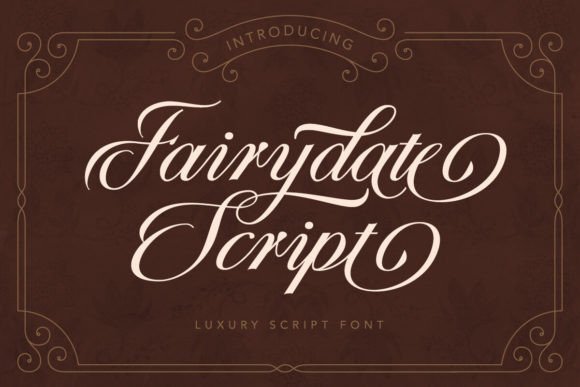
Unlock the Magic of Fairydate Font
As designers, we’ve all been there – staring at a blank canvas, searching for the perfect font to bring our creative vision to life. The moment of discovery, when the right typeface finally clicks, is one of the most exhilarating experiences in the design process. And for those seeking a touch of elegance and sophistication, Fairydate Font is sure to cast a spell.
This luxury script font boasts an impressive array of stylish alternates, allowing designers to add a personal touch to their projects. Whether it’s a wedding invitation, a motivational quote, or a brand’s identity, Fairydate Font’s versatility makes it an invaluable tool in any designer’s arsenal. With its support for multiple languages, the possibilities are endless.
Fairydate Font Key Features
- Font Family: Fairydate Font is a unique, hand-drawn font designed for various digital and print media applications.
- Unique Characteristics: Fairydate Font features a whimsical, dreamy feel with intricate details and flourishes, perfect for adding a touch of magic to your designs.
Fairydate Font Review
I’ve had the chance to work with Fairydate Font, and I must say, it’s a unique and charming addition to any design project. ✨ The delicate, hand-drawn lines and intricate details give it a whimsical feel that’s perfect for children’s books, wedding invitations, or any other project that needs a touch of magic.
One of the standout features of Fairydate Font is its versatility. It comes in a range of weights and styles, making it easy to customize to suit your needs. ✨ The font also includes a wide range of punctuation and symbol options, which can add an extra layer of personality to your design.
- ⚠️ The font may not be suitable for large blocks of text, as the delicate lines can become difficult to read at certain font sizes.
- ⚠️ Some users may find the font’s whimsical style to be distracting or over-the-top, depending on the project’s tone and audience.
Overall, I think Fairydate Font is a great addition to any designer’s toolkit. While it may have some limitations, its unique charm and versatility make it a great choice for the right project. With a little creativity and experimentation, Fairydate Font can help you create truly enchanting designs.
Tips for Getting the Most Out of Fairydate Font
To get the most out of Fairydate Font, consider the following tips:
- Use Fairydate Font for whimsical and romantic designs
- Pair Fairydate Font with bold and playful fonts for contrast
- Experiment with different font sizes and styles to create visual interest
Alternatives to Fairydate Font
The Great Vibes Font is a beautiful, elegant script font perfect for adding a touch of sophistication to your designs. It’s ideal for use in wedding invitations, wedding stationery, and other romantic projects. Compared to Fairydate Font, Great Vibes Font has a more refined and classic feel, making it suitable for formal and high-end projects.
Pacifico Font is a modern script font with a relaxed and casual vibe. It’s perfect for use in creative and artistic projects, such as branding, packaging, and advertising. Compared to Fairydate Font, Pacifico Font has a more laid-back and beachy feel, making it suitable for projects that require a carefree and playful tone.